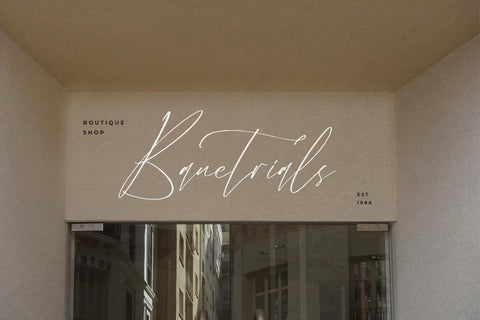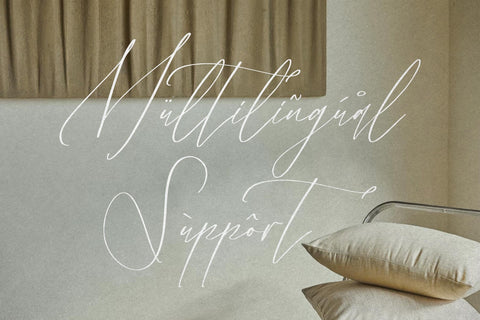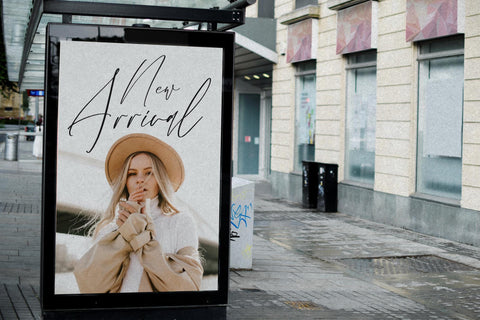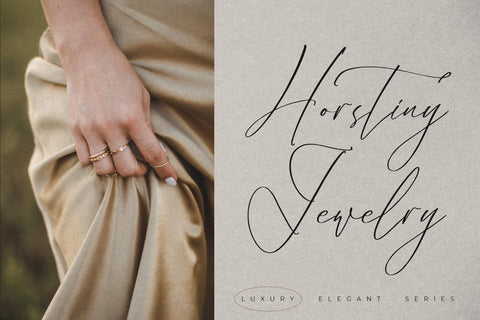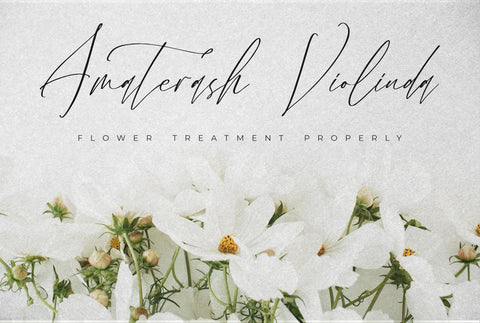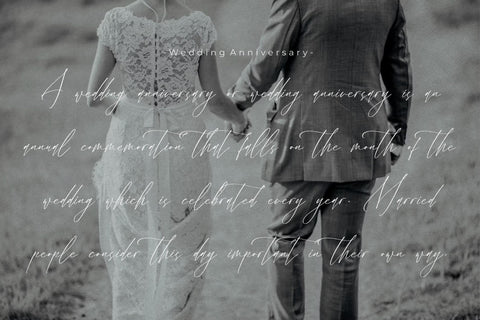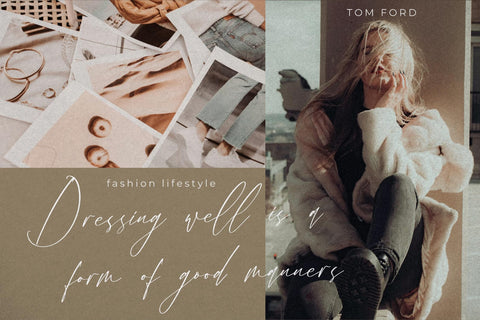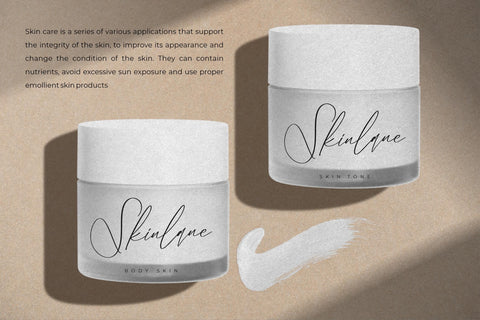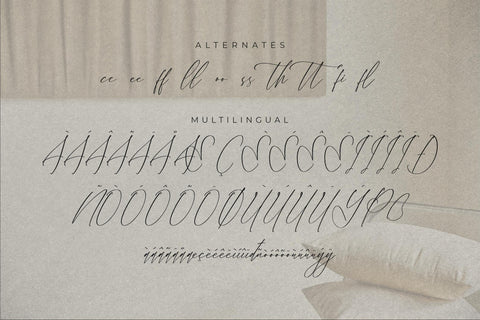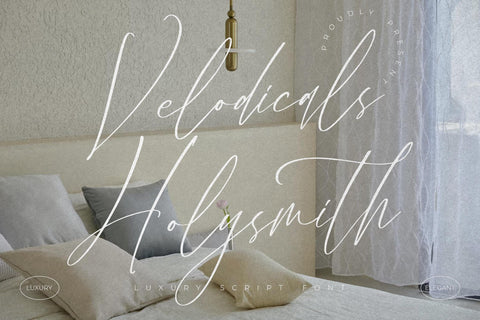
Velodicals Holysmith - Luxury Script Font
Proudly present Velodicals Holysmith - Luxury Script Font , created by Storytype,
A luxury script that has own unique style & modern look.